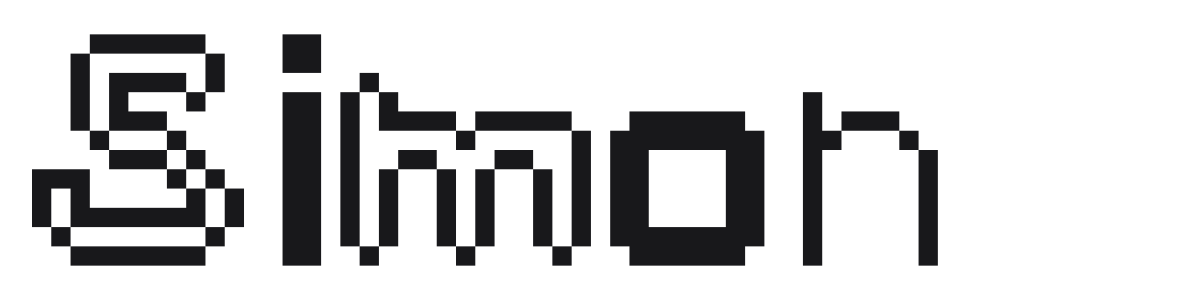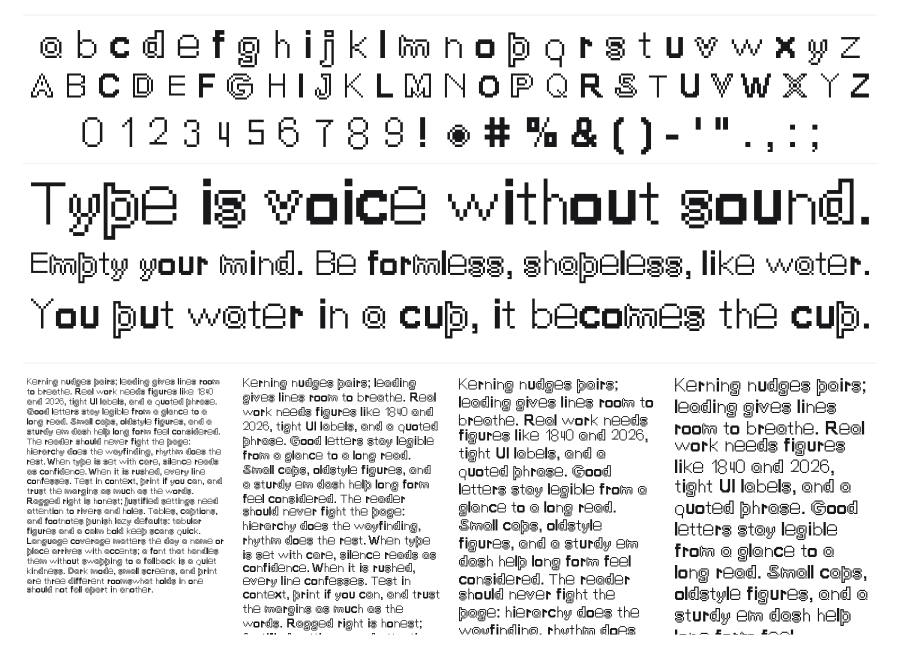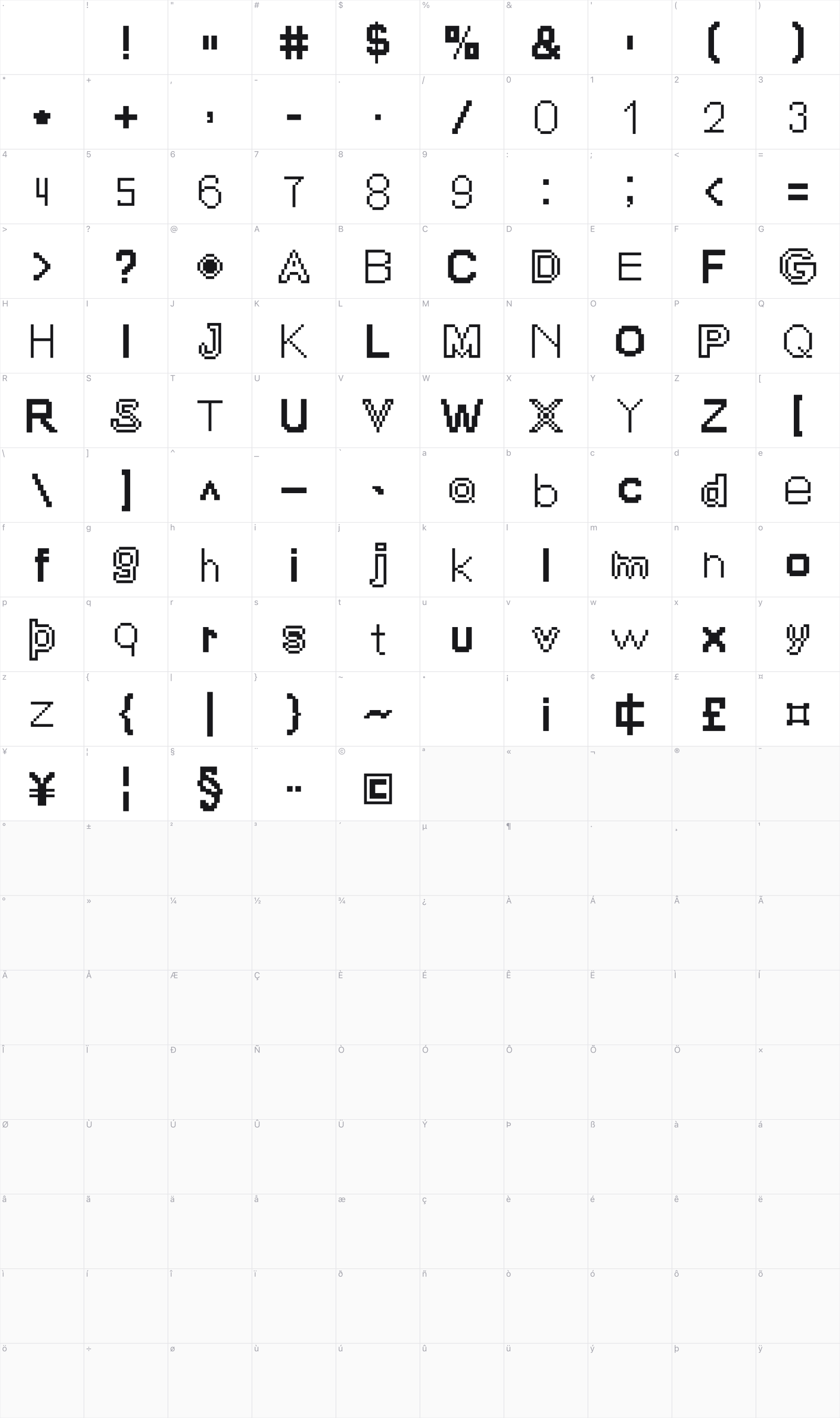
Simon
Simon is a pixel bitmap font by Maowcraft with a distinctly lo-fi, 8-bit character. Its most unusual trait is the inconsistent stroke weight across the alphabet, with some letters appearing bold and others light, creating an uneven rhythm that feels intentional and handmade. That rawness gives it charm in gaming titles, digital zines, and any context where polished perfection is beside the point.